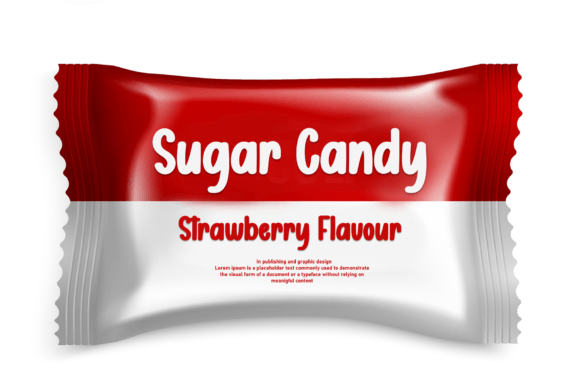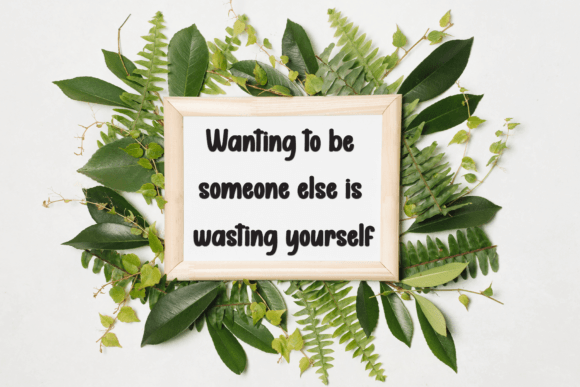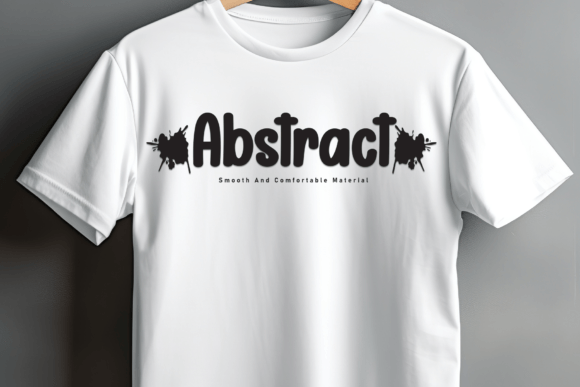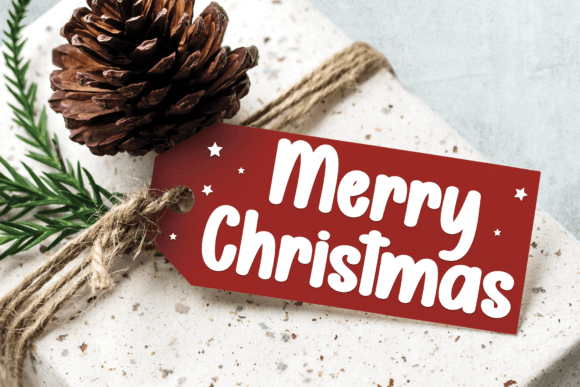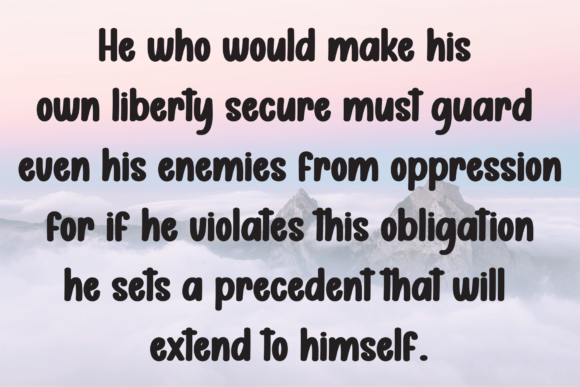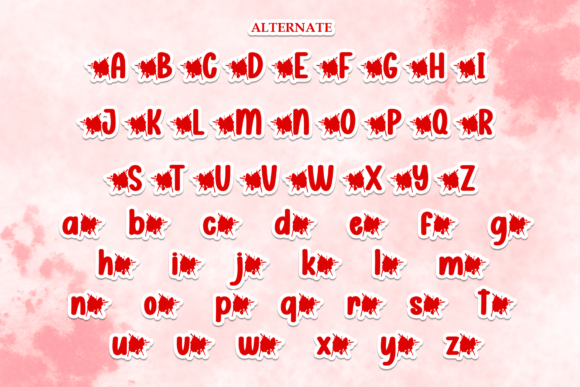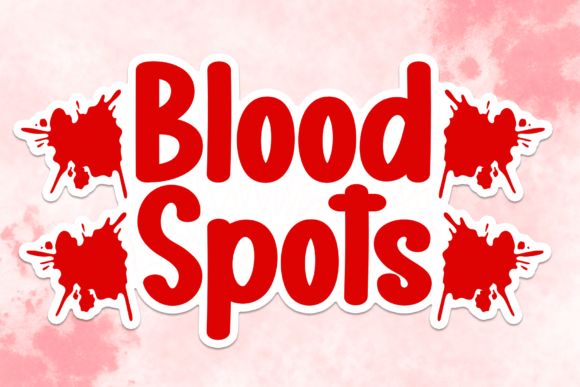
The Hunt for the Perfect Font: How Blood Spots Stole My Heart
I still remember the design project that led me to discover Blood Spots, a lovely and timeless handwritten font. I was working on a branding project for a boutique client, and I was struggling to find the right font to capture the essence of their elegant yet playful brand. The client had a very specific vision in mind – a font that was both eye-catching and sophisticated. After hours of scouring font libraries and trying out various options, I stumbled upon Blood Spots. It was love at first sight! ✨
An Honest Review of Blood Spots
- 💕 Unique and beautiful touch: Every letter in Blood Spots has a distinctive character that sets it apart from other fonts.
- ✅ Timeless elegance: Despite being a handwritten font, Blood Spots exudes a sense of sophistication and timelessness.
- 🎨 Versatility: Blood Spots is perfect for creating eye-catching logos, branding, and quotes.
While Blood Spots is an amazing font, it’s not perfect. Here are a few things to keep in mind:
- 🤔 Limited use in very formal contexts: While Blood Spots is elegant, it may not be the best choice for very formal or corporate designs.
- ⚠️ May not be suitable for very small text sizes: Due to its handwritten nature, Blood Spots may not be legible at very small text sizes.
The Backstory Behind Blood Spots
The story behind Blood Spots is a fascinating one. According to the font’s designer, the inspiration for Blood Spots came from a combination of traditional calligraphy and modern digital design. The designer wanted to create a font that was both elegant and playful, with a unique touch that would set it apart from other fonts.
Q: What is Blood Spots font?
A: Blood Spots is a lovely and timeless handwritten font perfect for creating eye-catching logos, branding, and quotes.
Q: Is Blood Spots easy to read?
A: Yes, Blood Spots is generally easy to read, even at smaller text sizes. However, it’s always a good idea to test the font in your design to ensure it’s legible.